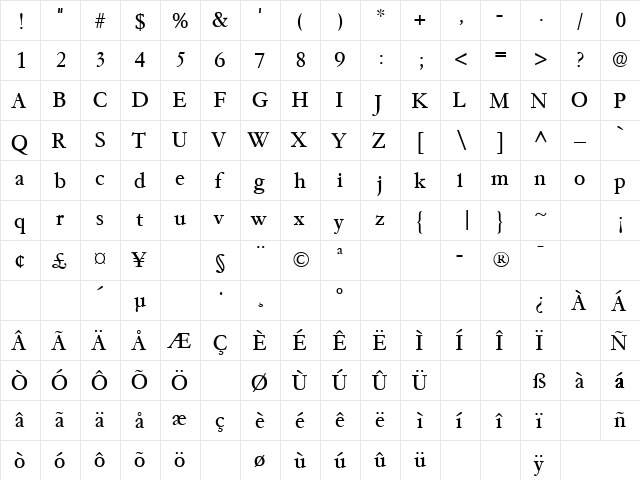
Algonquin Lite Regular Lite
Algonquin Lite takes a measured approach to typography — its balanced proportions and neutral character make it a reliable workhorse for both digital and print work.